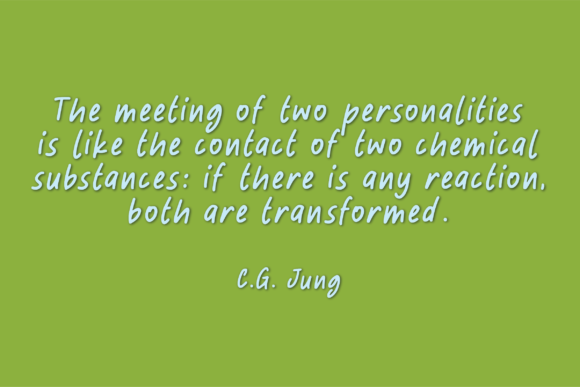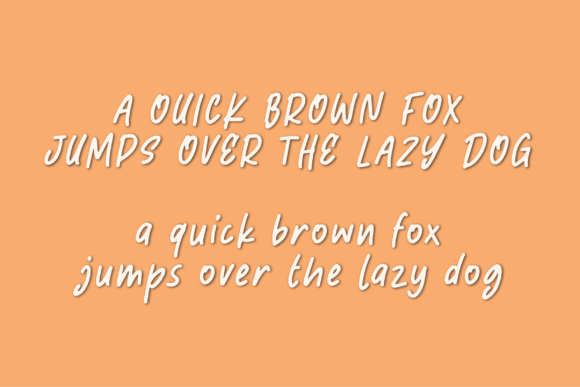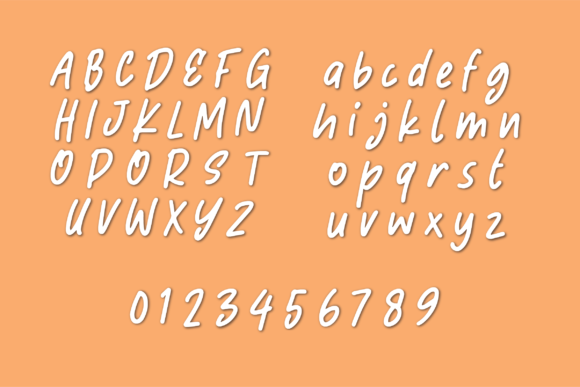
Introduction to Farmhouse Handwriting Font
Farmhouse Handwriting is a beautiful and attractive handwritten font.
It has a modern yet whimsical style and it will undoubtedly immerse your designs into a magical world .